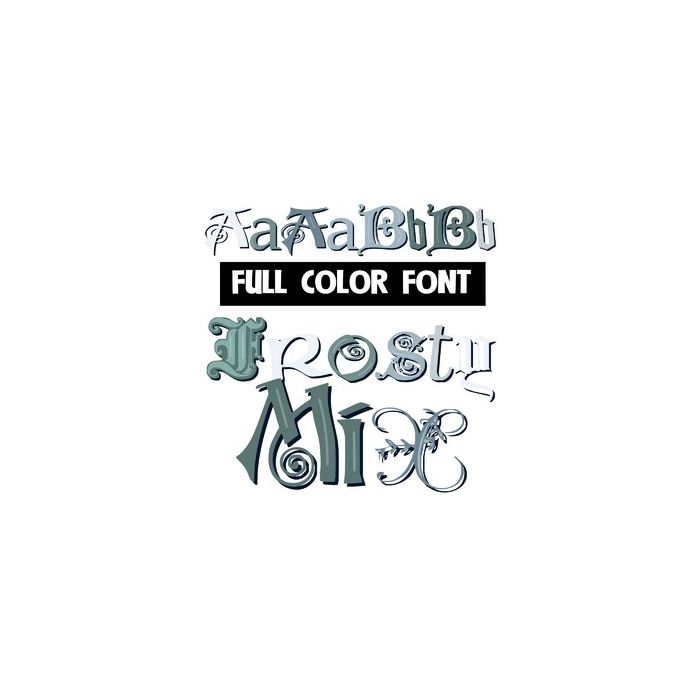
This full-color font features a mix of lettering styles with a winter color palette. You can access another version of the letters by using the alt characters in Silhouette's glyph map..